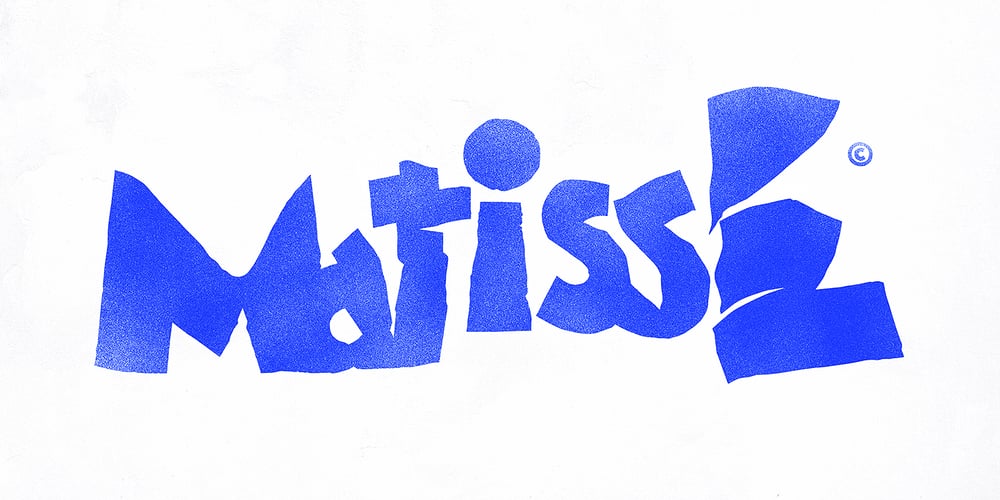
JF Matisse Font Family was designed by Pose Radu, Andrei Ograda and published by The Jumping Foxes. JF Matisse contains 1 styles and family package options. A font inspired from Henri Matisse’s cutouts and color palette. The font was created from outlining forms without being constrained by any reason or rational proportions. It has a deliberately disorienting and unsettling tone. Tension exists throughout sometimes clear and abrupt lines, creating a vibrant and rebellious font. It’s best used for short and bold headlines or titles. This font shouts attention.